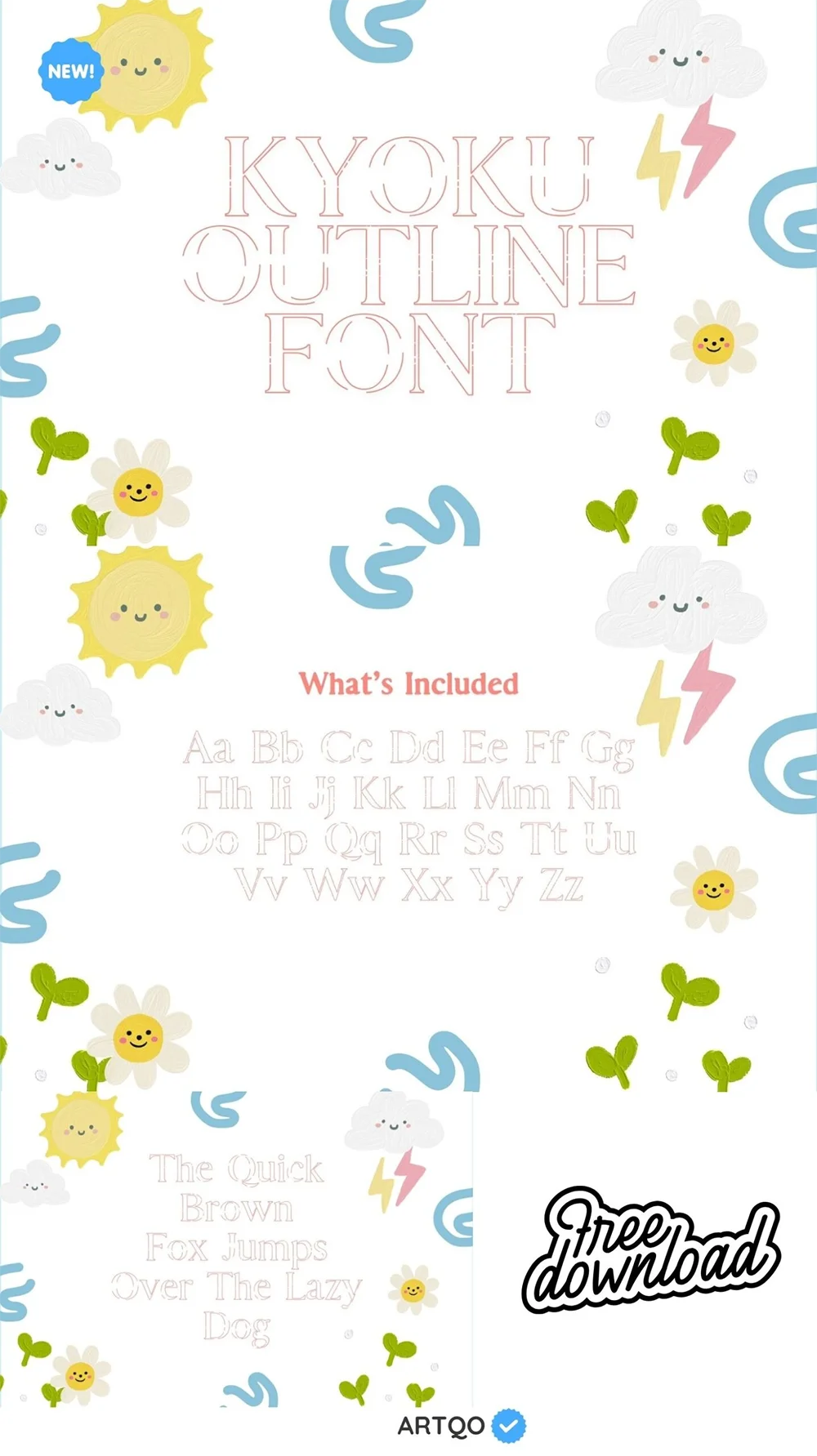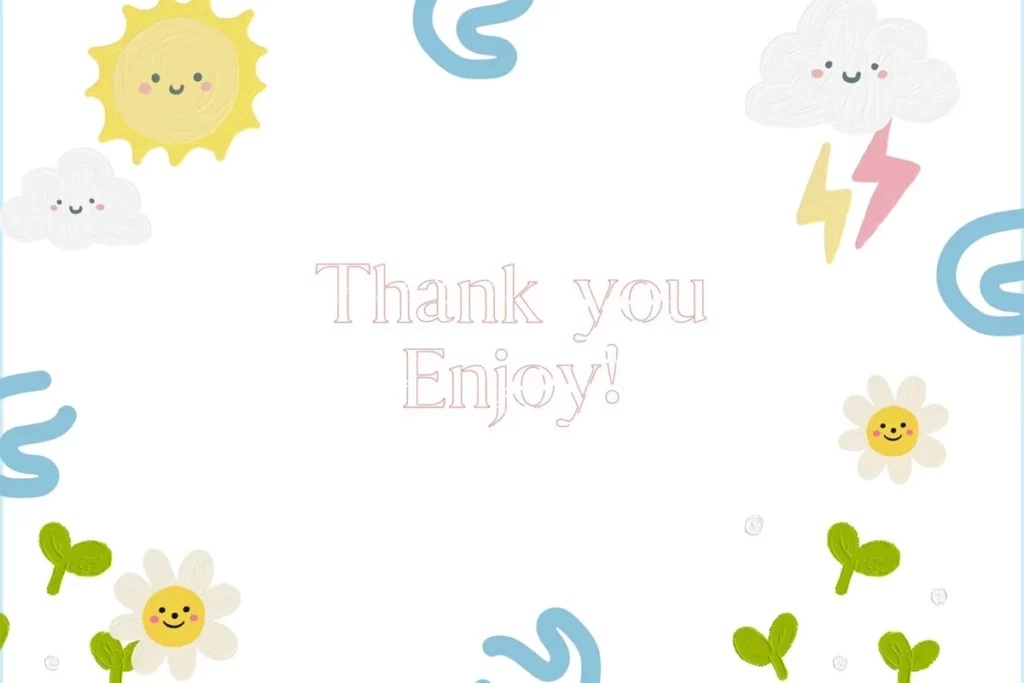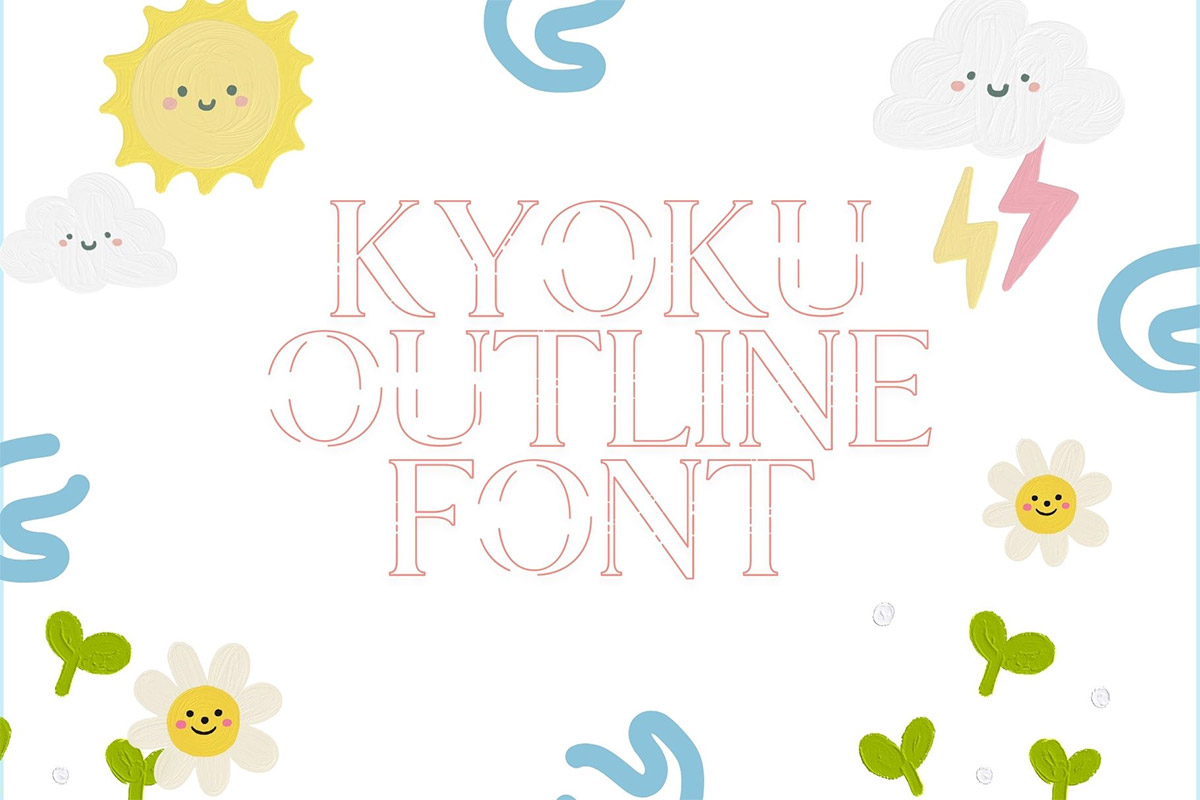
Kyoku Outline Font
Kyoku Outline Font is a modern and creative typeface designed with a clean and minimalist outline style. It brings a fresh look to your design projects with its sharp, elegant characters. Whether you’re working on posters, logos, invitations, or web designs, this font adds a touch of sophistication while maintaining a playful, unique feel. Its simple, lightweight form makes it ideal for both personal and commercial projects that need to stand out with subtle details.
This versatile font suits a wide range of uses, from branding to social media content, allowing you to express creativity with ease. It’s designed to enhance readability while offering a stylish visual experience. The outline design ensures that the font can blend seamlessly into different themes, giving you the freedom to experiment with layering, colors, and backgrounds.
Benefits of Kyoku Outline Font:
- Elegant Design: The clean and simple outline gives a modern and polished look to any project.
- Versatile Use: Suitable for logos, branding, invitations, posters, and social media.
- Enhanced Readability: Despite its outline style, the characters remain easy to read, even at smaller sizes.
- Creative Flexibility: Great for layering effects, using different colors, or experimenting with textures.
- Perfect for Minimalist Designs: Ideal for projects that require a sleek, minimalistic approach.
- Attention-Grabbing: The unique design captures attention while maintaining an elegant simplicity.